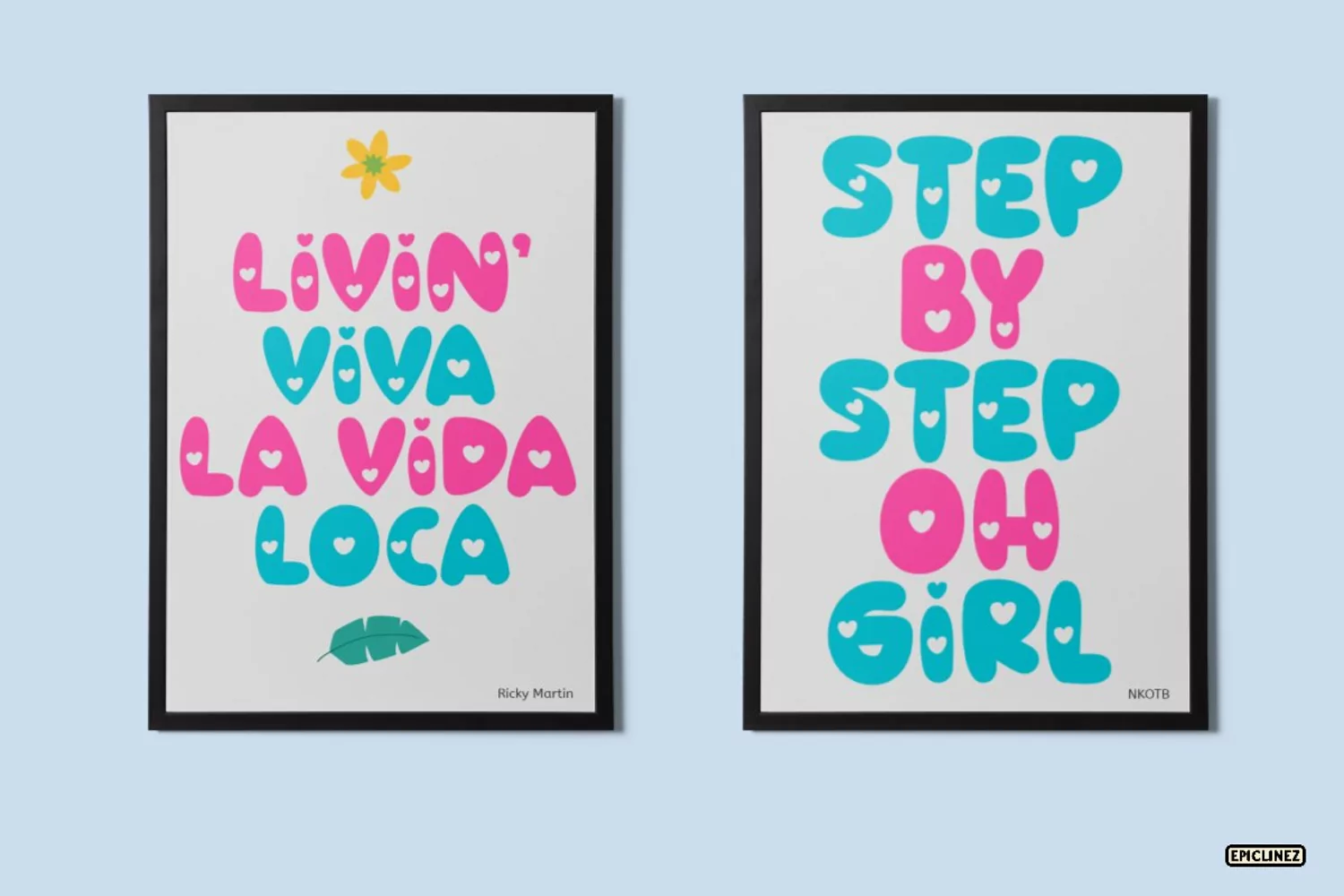
Love Castle - A Fun Display Font
Love Castle is a fun display font. This playful font will look truly outstanding in a wide of contexts from letterheads and titles, to logos.